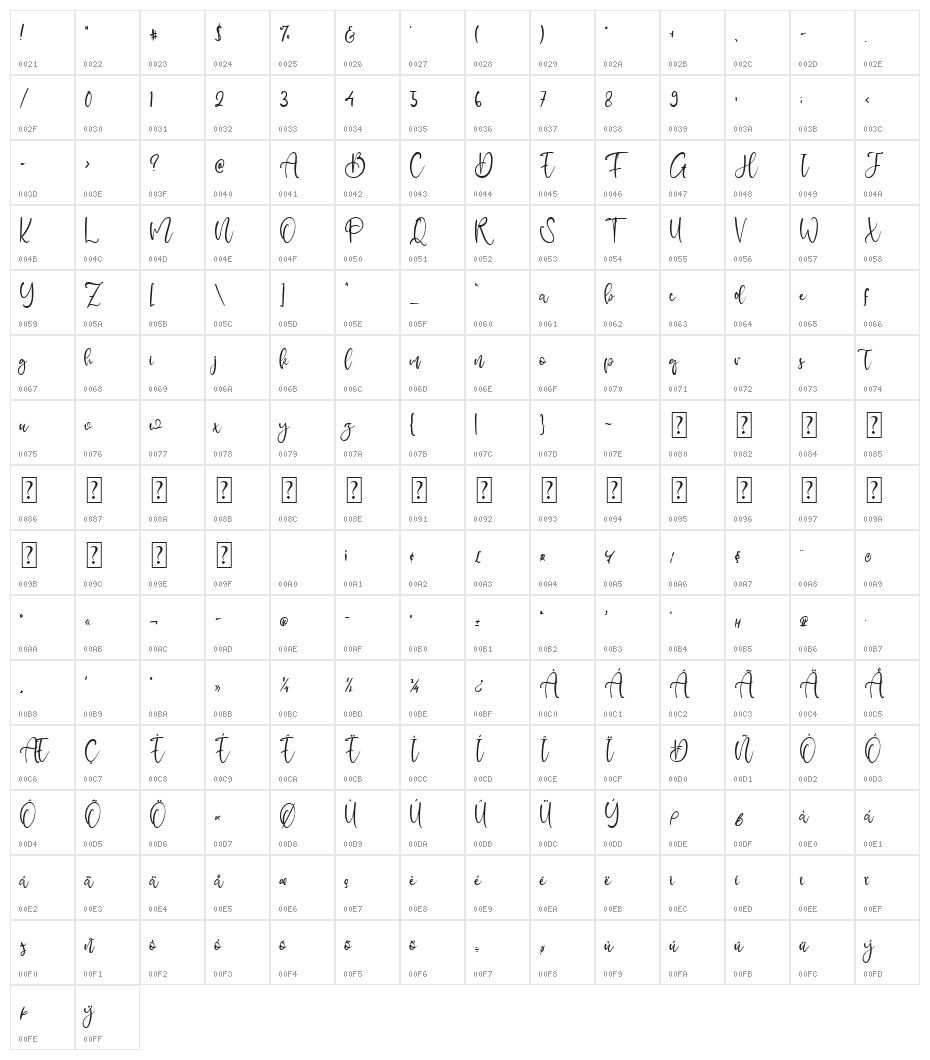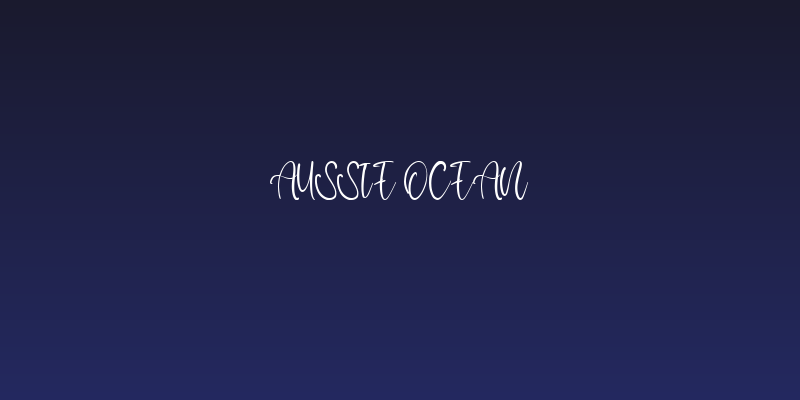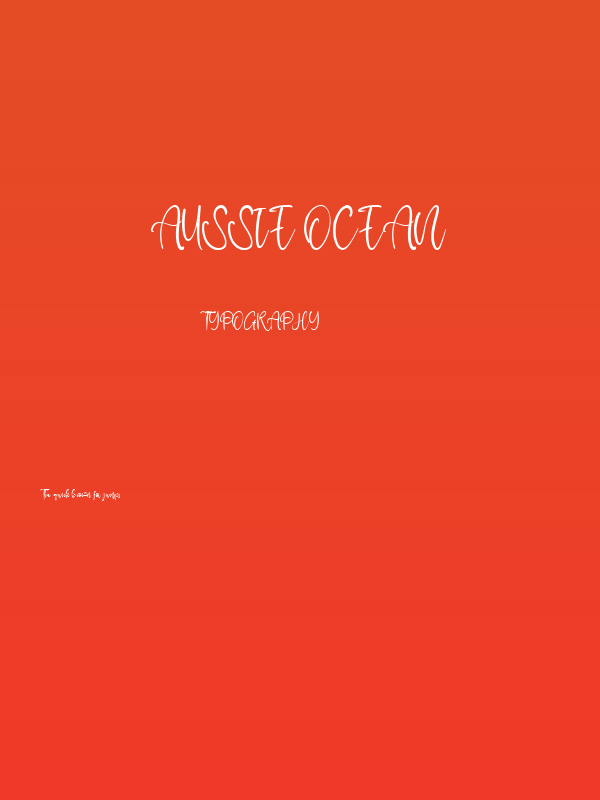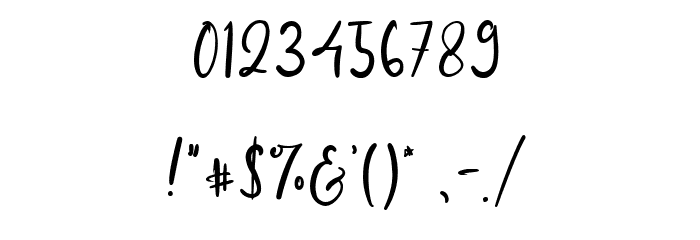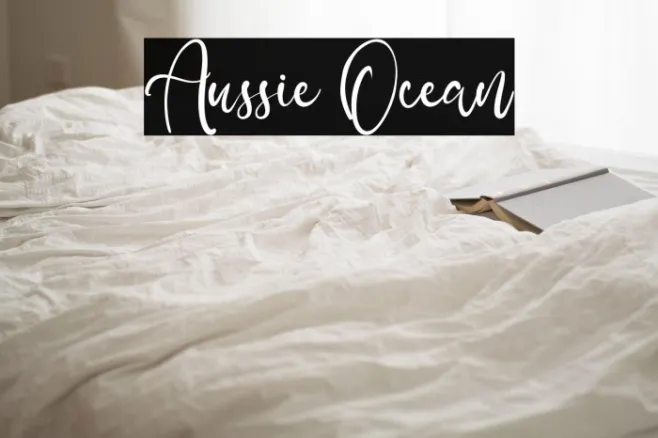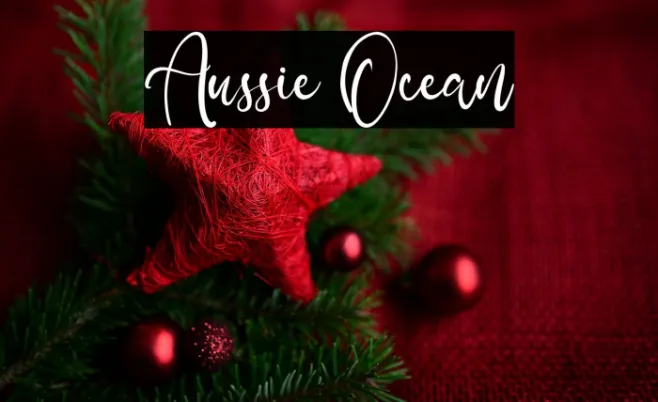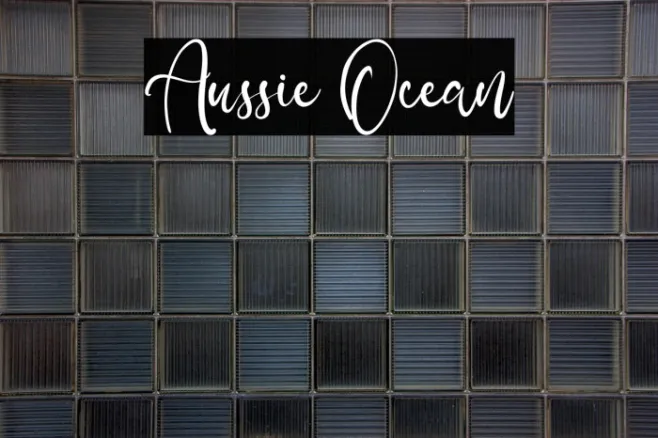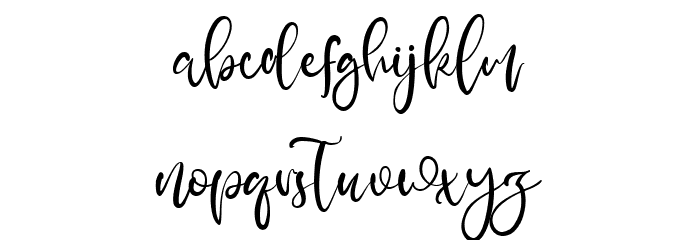
Aussie Ocean Font
Aussie Ocean Description
This font features a flowing, cursive style that exudes elegance and sophistication. The uppercase letters are bold and sweeping, with intricate loops and curves that give a sense of movement. The lowercase letters maintain a consistent flow, with smooth connections between characters, enhancing readability while retaining a decorative flair. The numerals are designed with a similar cursive style, ensuring cohesion across all characters. Special characters are thoughtfully integrated, maintaining the overall aesthetic. This font is perfect for projects that require a touch of elegance and personality.